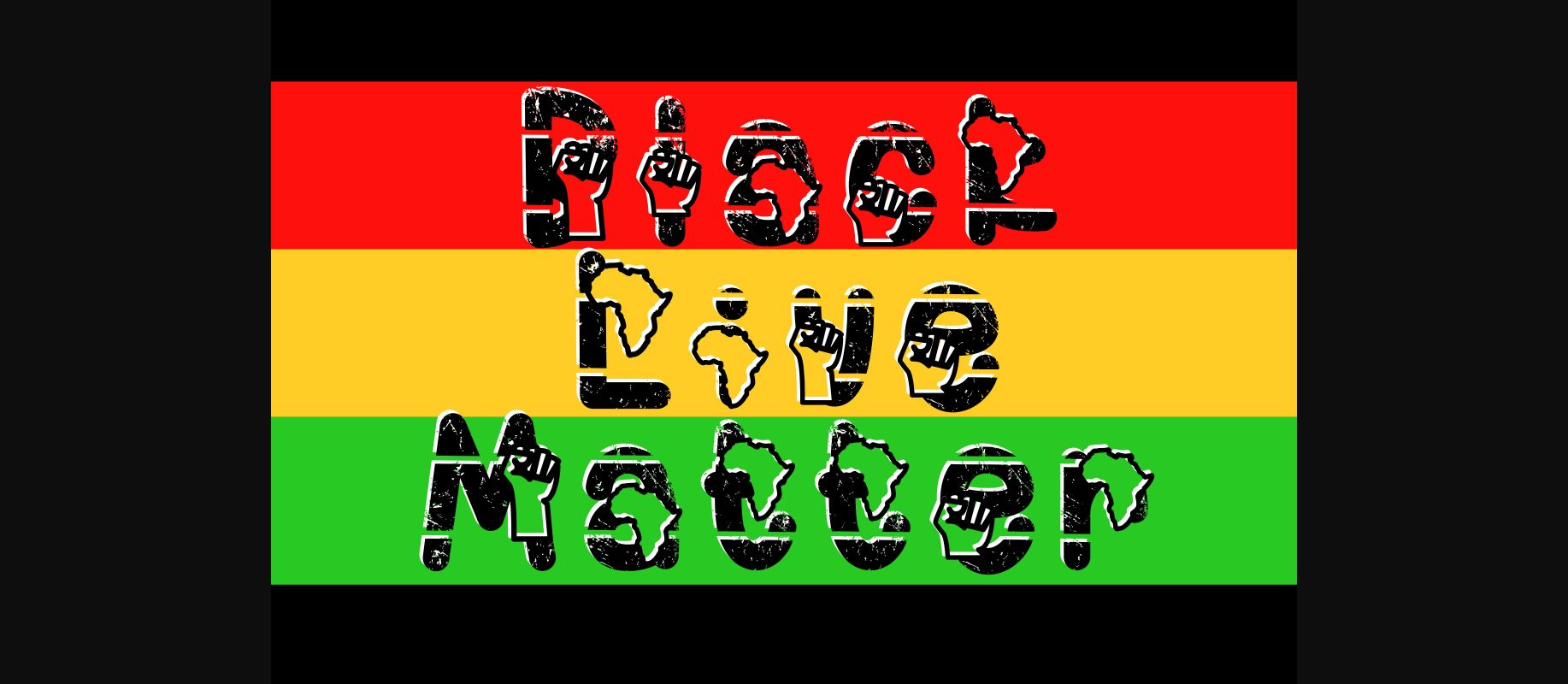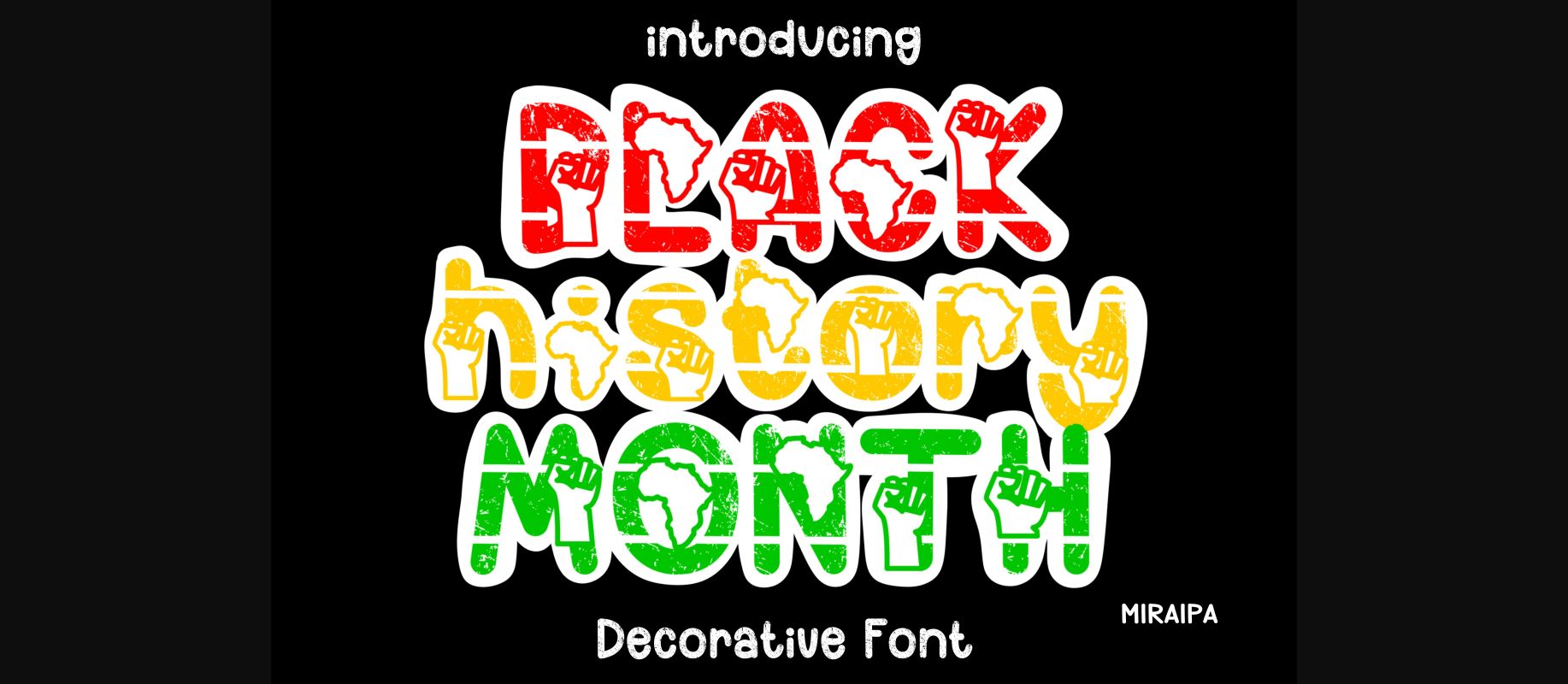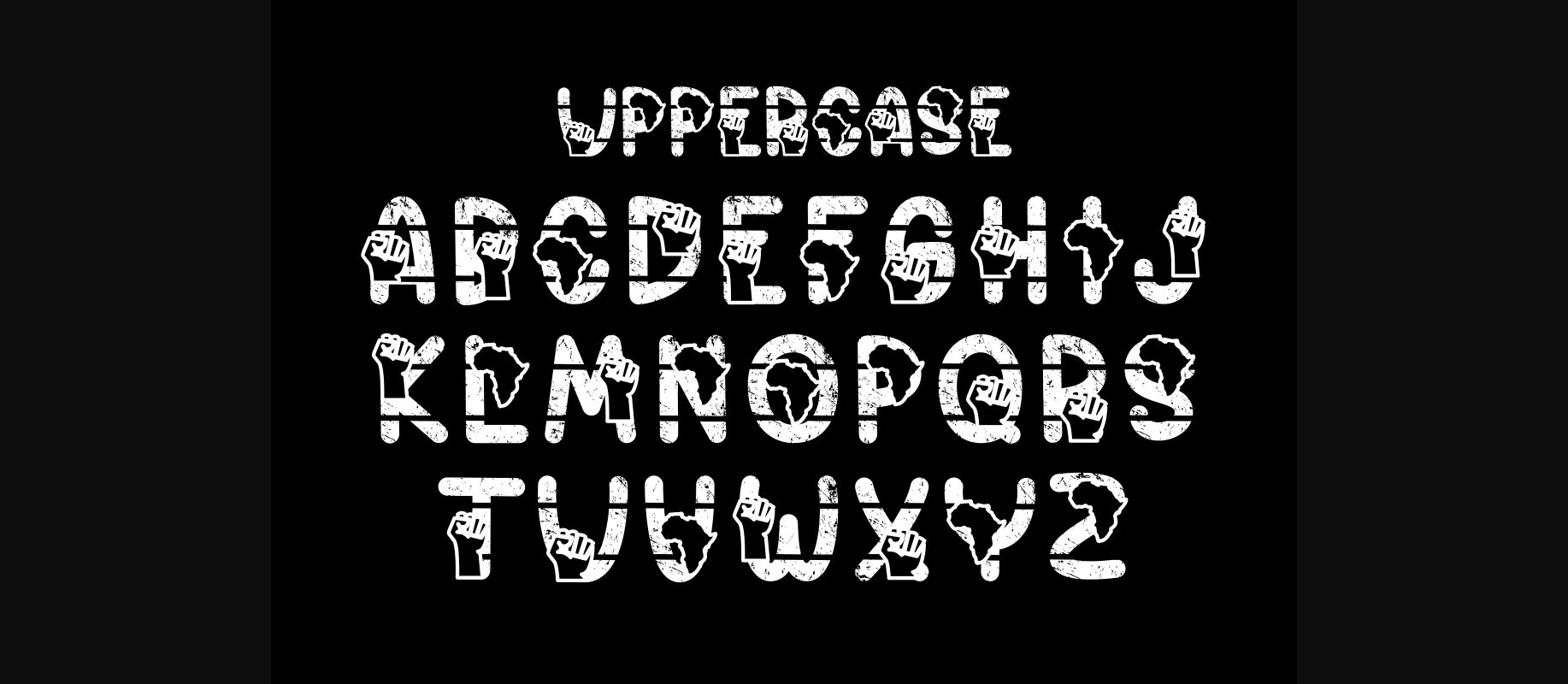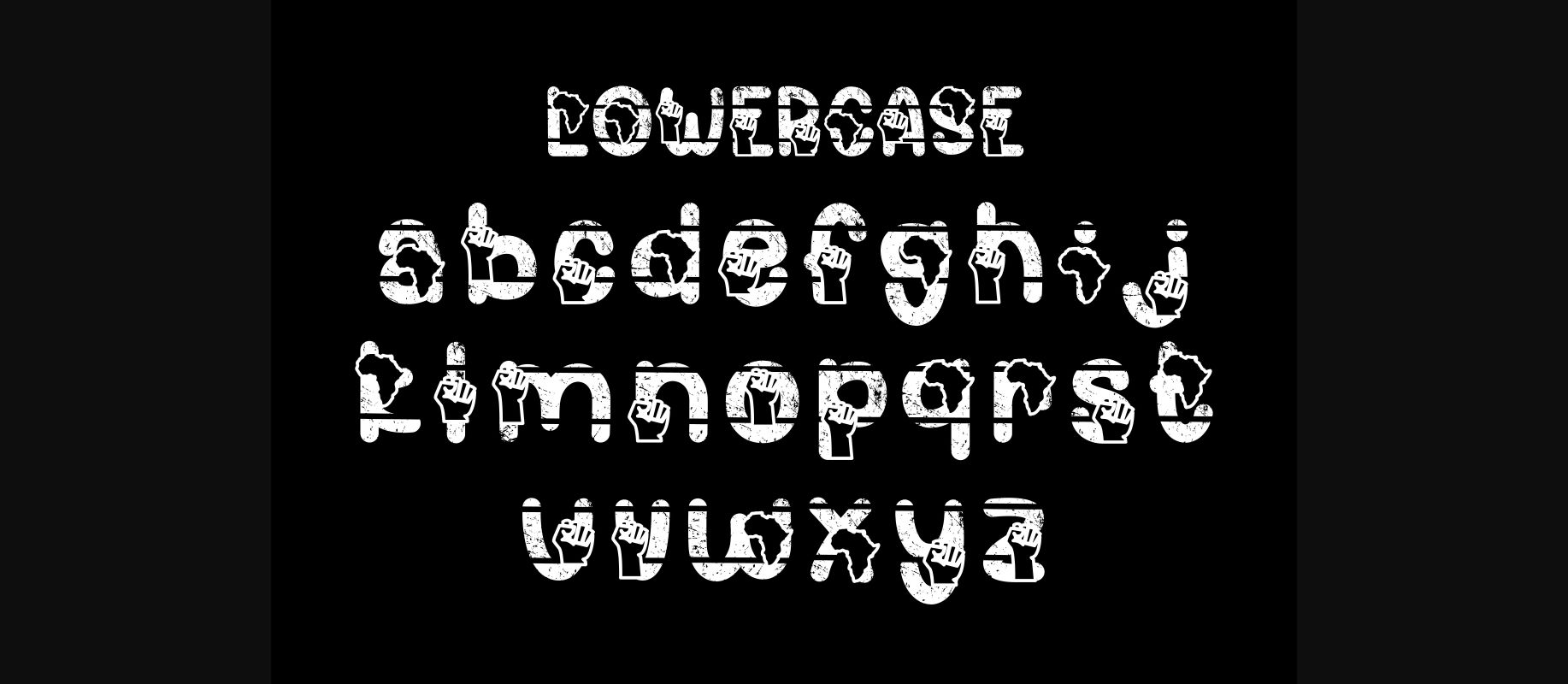
About Black History Month Font
Black History Month is a friendly and cool decorative font dedicated to this special month. Add it now to your fonts library, and it will bring any of your DIY projects to life.